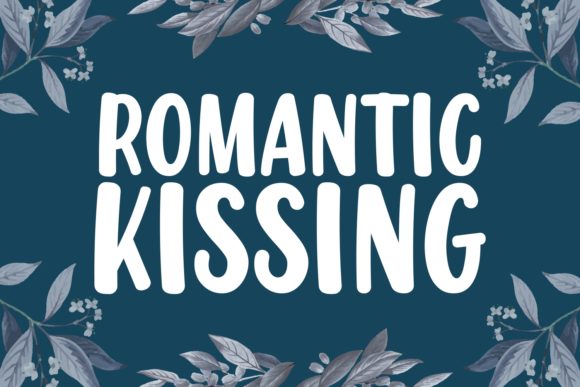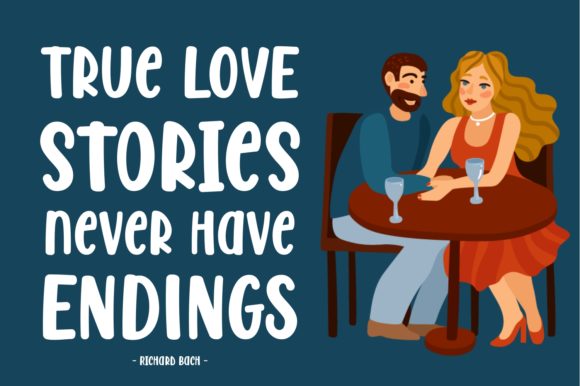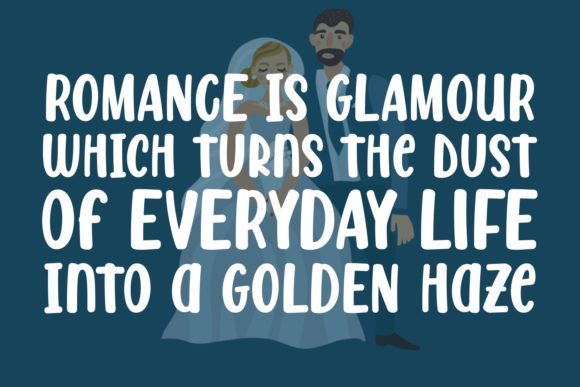
Romantic Kissing Font
Romantic Kissing is a friendly and modern script font with a unique style. It is perfectly suited for a wide variety of projects!